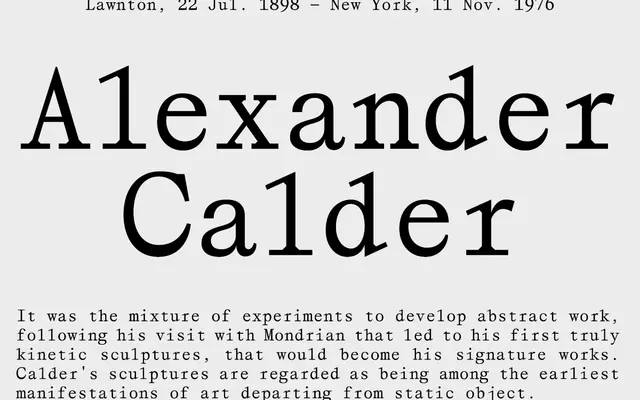
Affairs
SM · Mark Niemeijer · 2021
A compact geometric serif by Mark Niemeijer with proportions drawn from neo-grotesque sans-serifs, making it an easy pairing companion.
Designed by Mark Niemeijer and released in December 2021, Affairs takes its structural cues and proportions from neo-grotesque sans-serifs, giving it an unusual degree of compatibility when set alongside typefaces in that tradition. Its geometric construction is softened by sleek curves, allowing it to sit comfortably in both formal and informal contexts. The family comprises three styles: Regular, Italic and a Mono variant.
The foundry explicitly classifies Affairs as a Geometric Serif. Its structure draws from geometric proportions akin to neo-grotesque sans-serifs, placing it firmly in that subcategory.